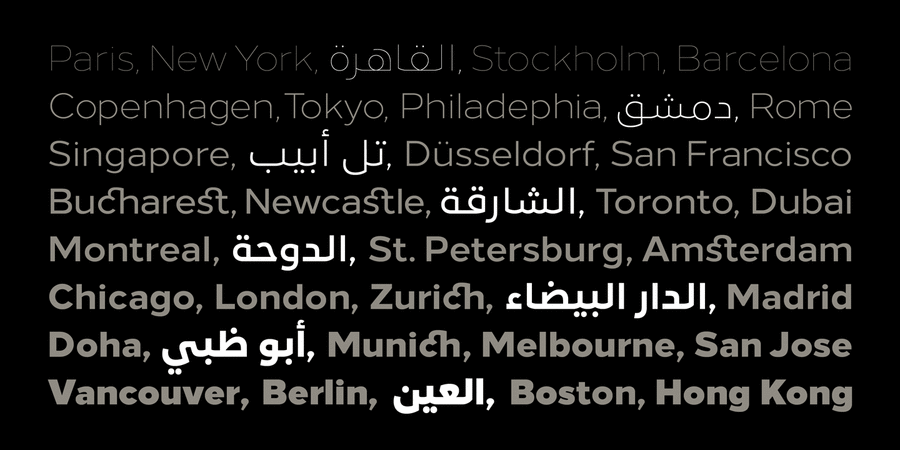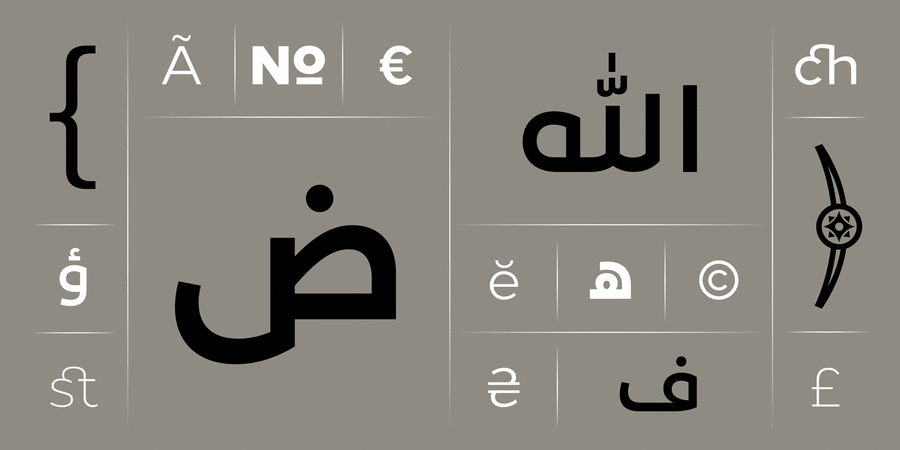
Loew Next Arabic (8 fonts)
About Loew Next Arabic is the modern, honest and straightforward go-to sans serif type family aimed at a global user. Painstakingly reworked from the original design (Loew) to further enhance the consistency of detail between individual weights and improve its compatibility to support non-latin script languages. Details include over 800 characters with alternative lowercase a, e, g and l. Seven variations of numerals, small caps with accents, Opentype features inferiors, superiors, fractions and language support covering Arabic, Western, South and Central Europe. Designed by Jonathan Hill in 2018. Loew Next Arabic™ is a trademark of The Northern Block.